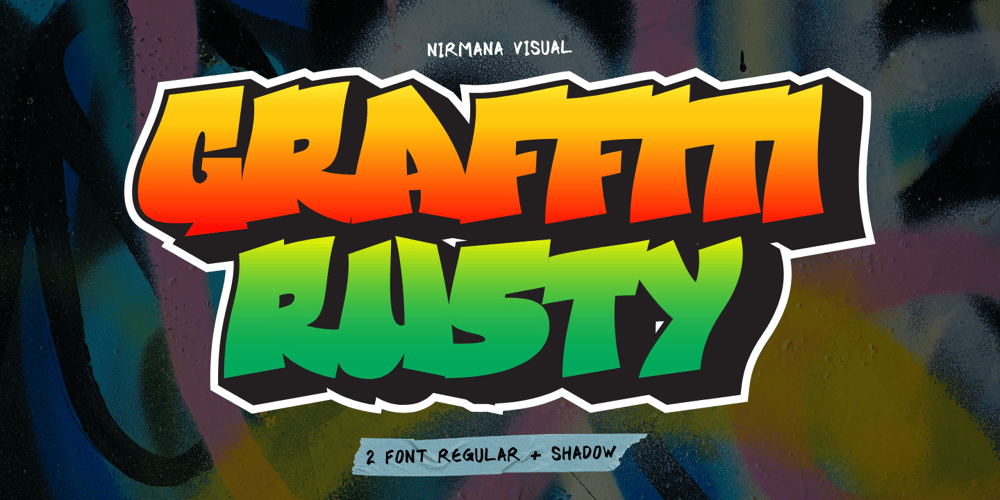
Graffiti Rusty Font Family was designed by Sigit Dwipa and published by Nirmana Visual. Graffiti Rusty contains 2 styles and family package options. Inspired by the urban landscape and the rebellious spirit of youth culture.characterized by an edgy, raw, and energetic aesthetic that captures the dynamic energy of the street.Graffiti Rusty offers beautiful typographic harmony for a diversity of design projects, including logos & branding, social media posts, advertisements & product designs.